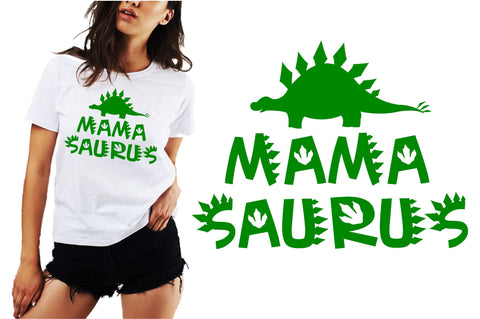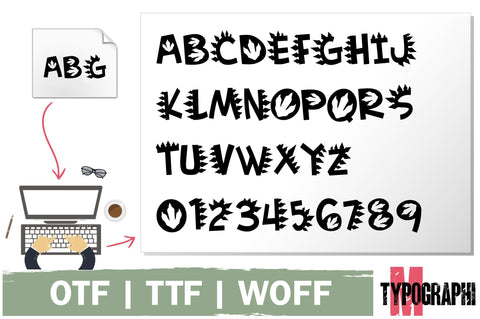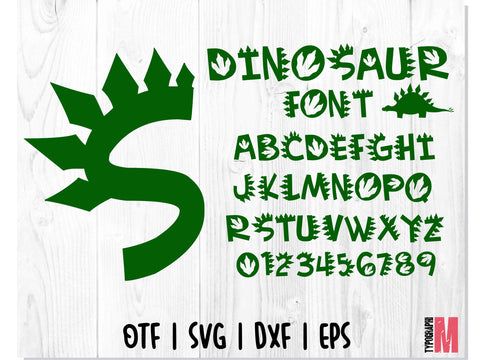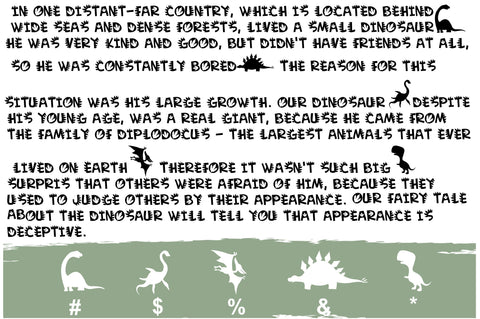
Dinosaur Font
Dinosaur is an adventurous decorative font that features elements of anyone’s favorite dinosaurs. Use it to add a playful and dynamic feel to any design project!